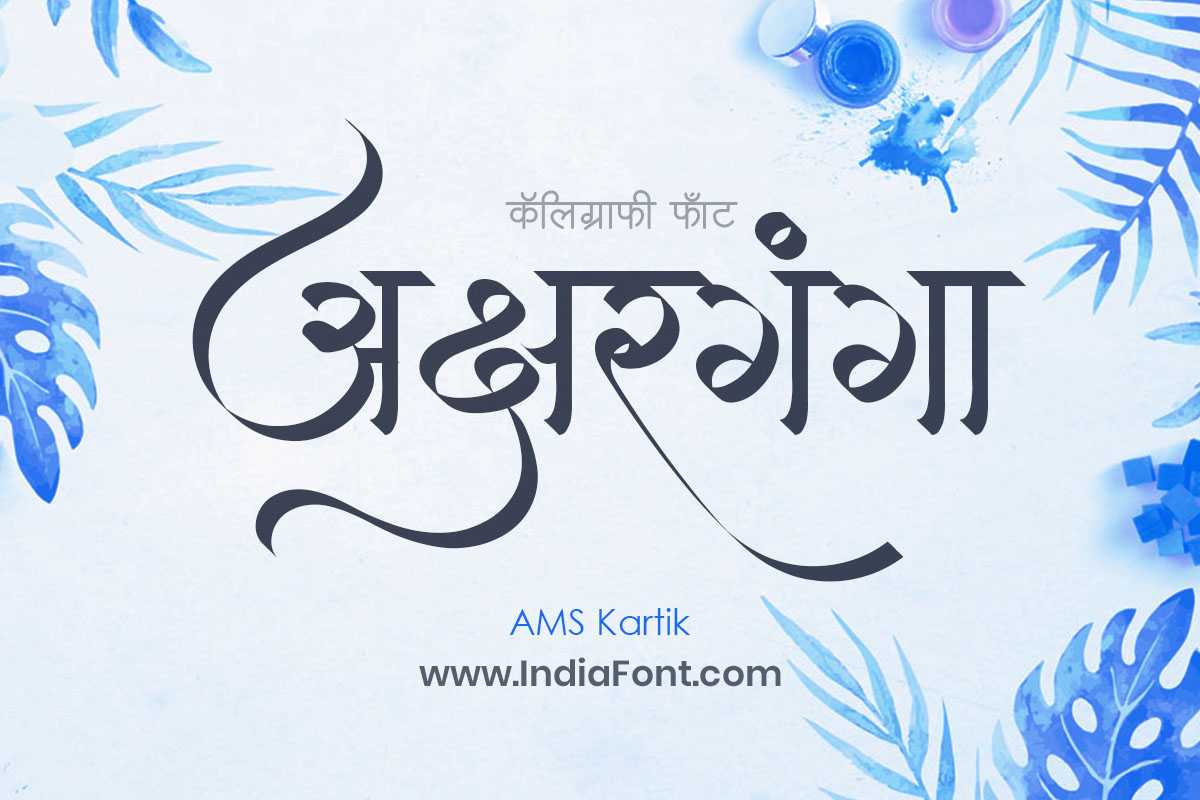
AMS Kartik
Embrace modern simplicity with AMS Kartik, a font that blends minimalism and functionality. Whether you're searching for free AMS fonts, specifically looking for AMS Kartik font download options, or exploring AMS Hindi font download choices, AMS Kartik is your versatile companion.
About AMS Kartik Font
Embrace modern simplicity with AMS Kartik, a font that blends minimalism and functionality. Whether you're searching for free AMS fonts, specifically looking for AMS Kartik font download options, or exploring AMS Hindi font download choices, AMS Kartik is your versatile companion. This calligraphy font combines elegance with functionality, making it perfect for various design applications.
AMS Kartik is a professionally crafted calligraphy typeface that brings clarity and style to your projects. Designed with attention to detail, it supports hindi and marathi characters flawlessly.
Whether you're working on wedding-materials, invitations, posters, or other creative projects, AMS Kartik delivers consistent performance across both digital and print media. This carefully designed typeface ensures readability and visual appeal in all your design work.
AMS Kartik excels in various design scenarios. Here are the most suitable applications:
About AMS Kartik Typography Style
AMS Kartik is a professionally crafted calligraphy font that exemplifies modern Hindi typography design. This free font is perfect for designers seeking impactful poster and display applications.
Available in 1 weight and supporting hindi, marathi scripts, AMS Kartik offers exceptional versatility for both digital and print media. Whether you're working on wedding-materials, invitations, posters, this carefully designed typeface ensures consistent quality and professional results across all your typography projects.